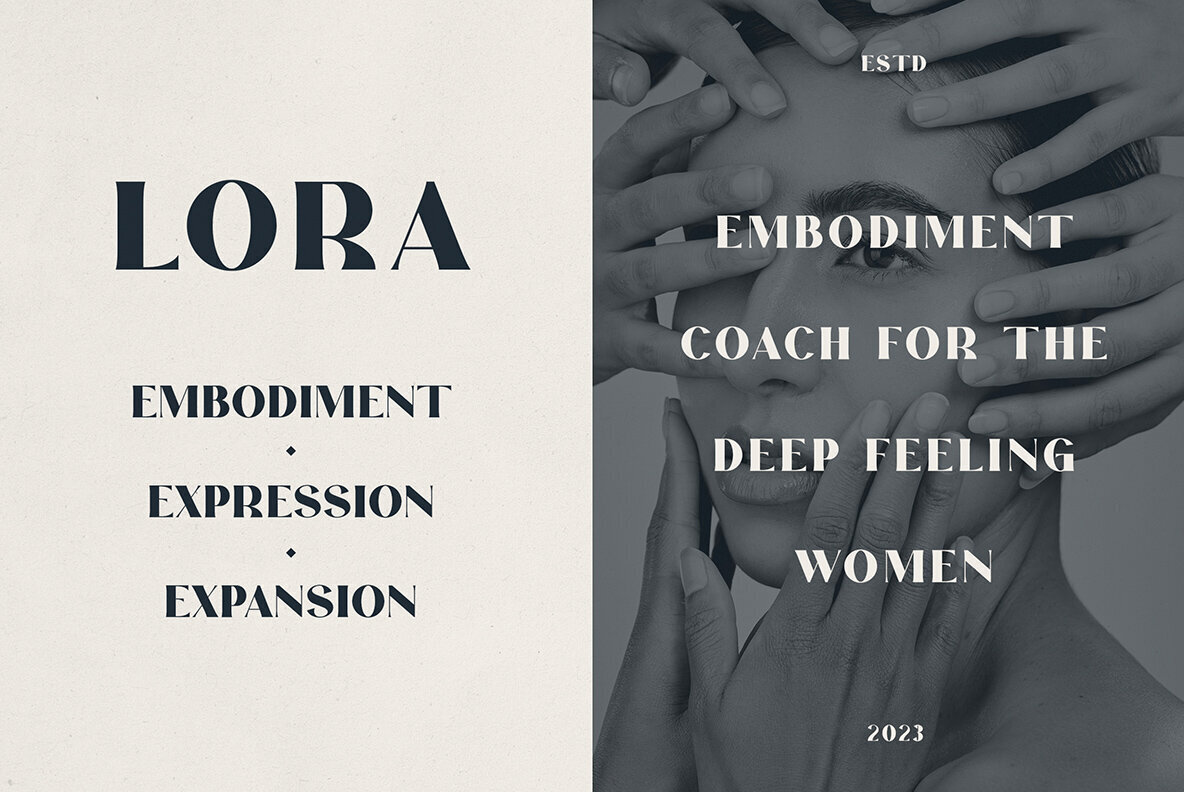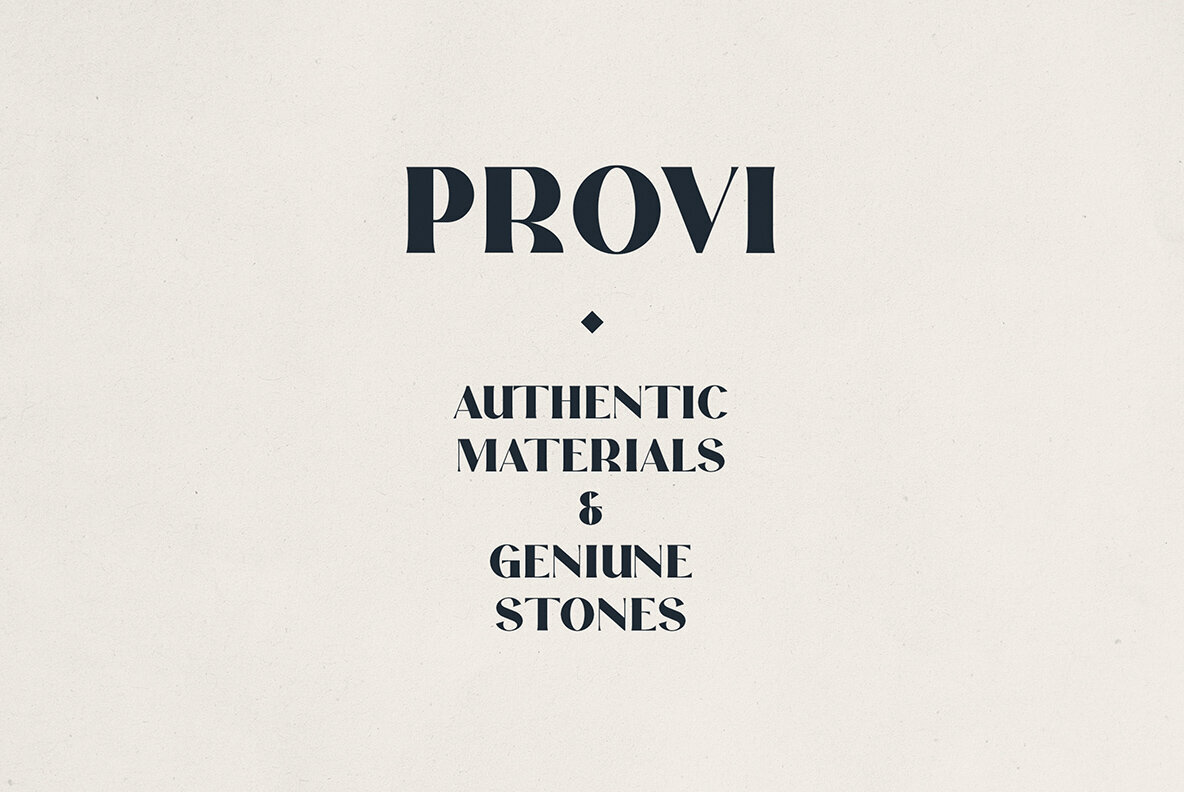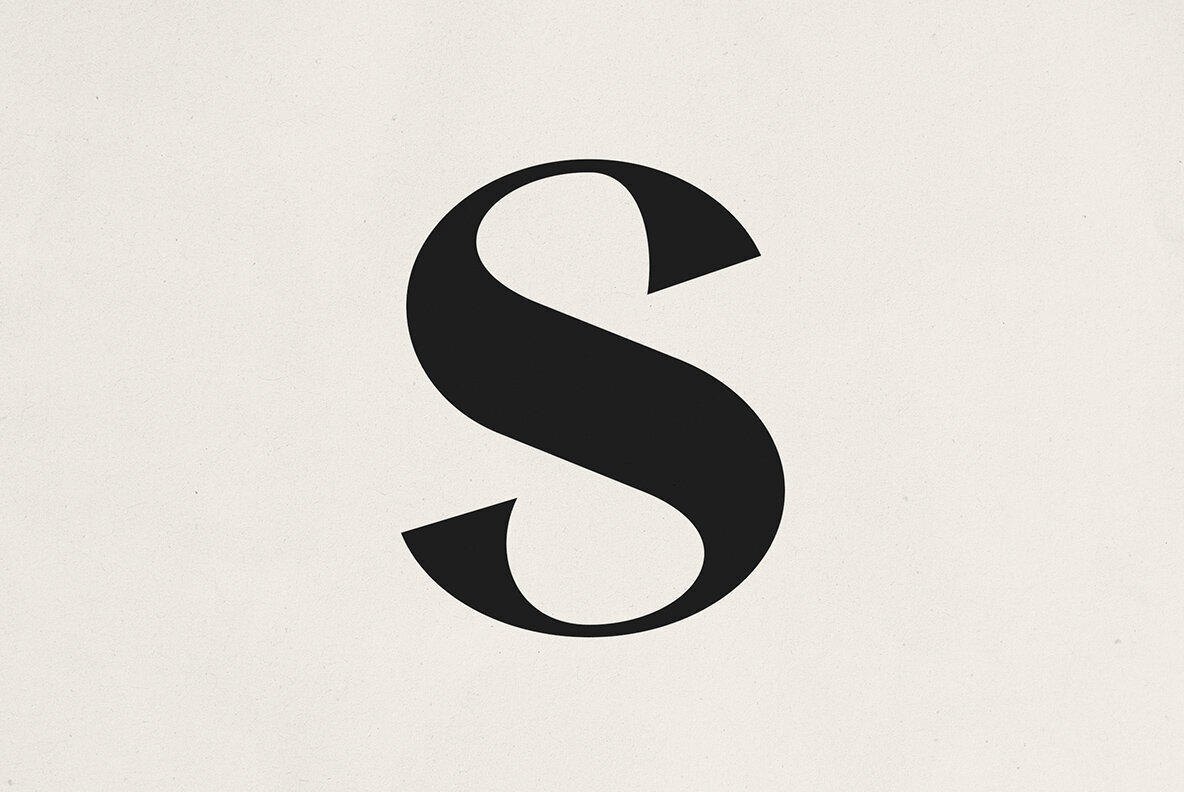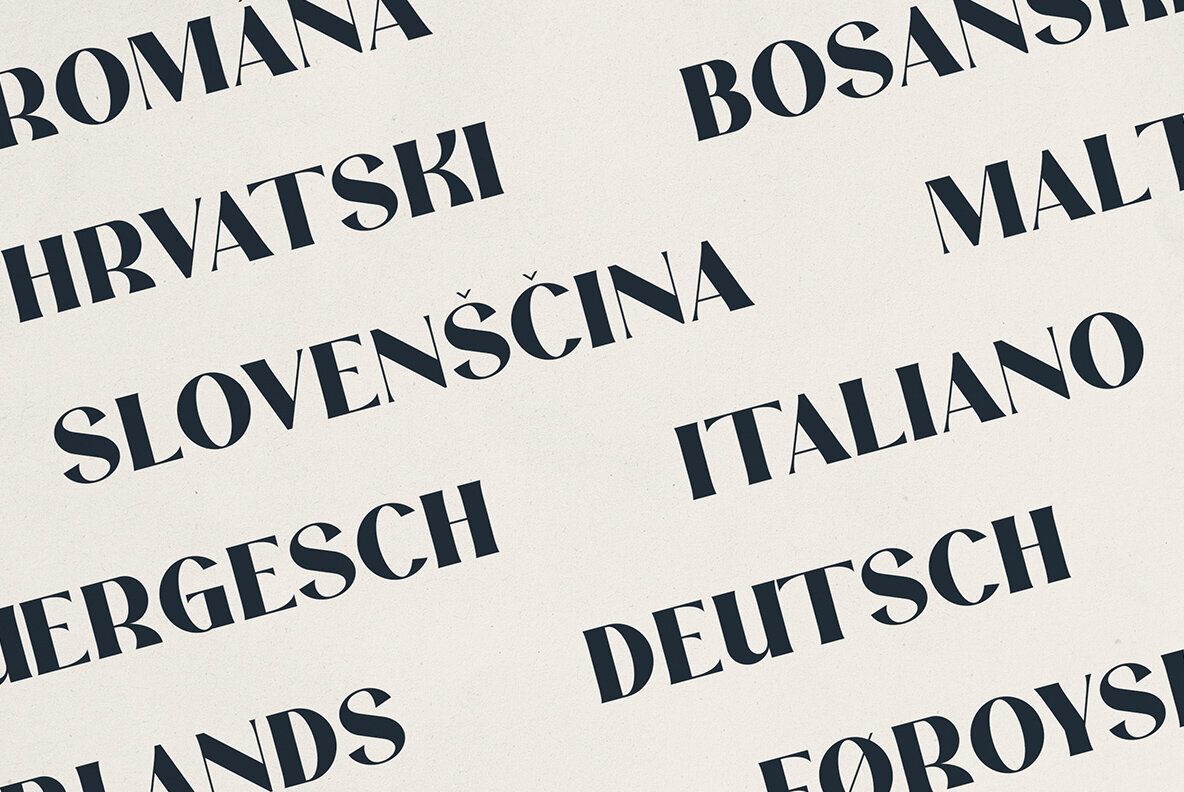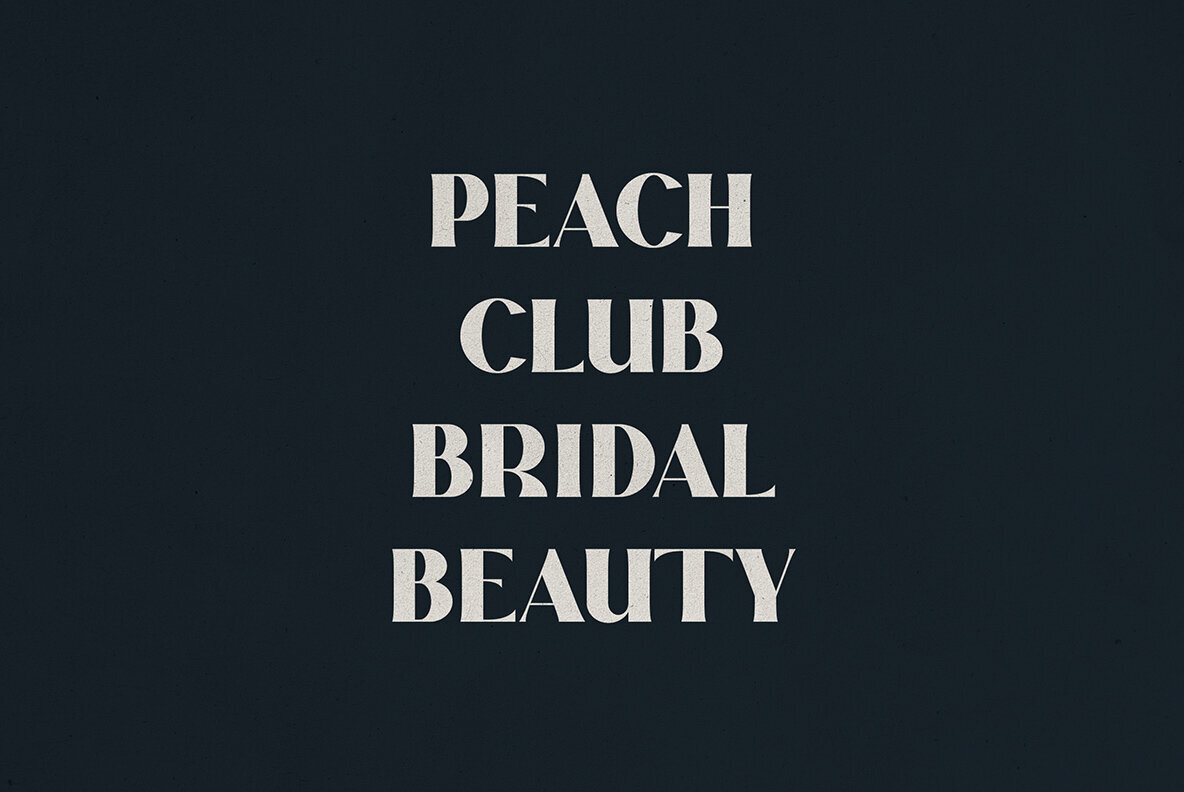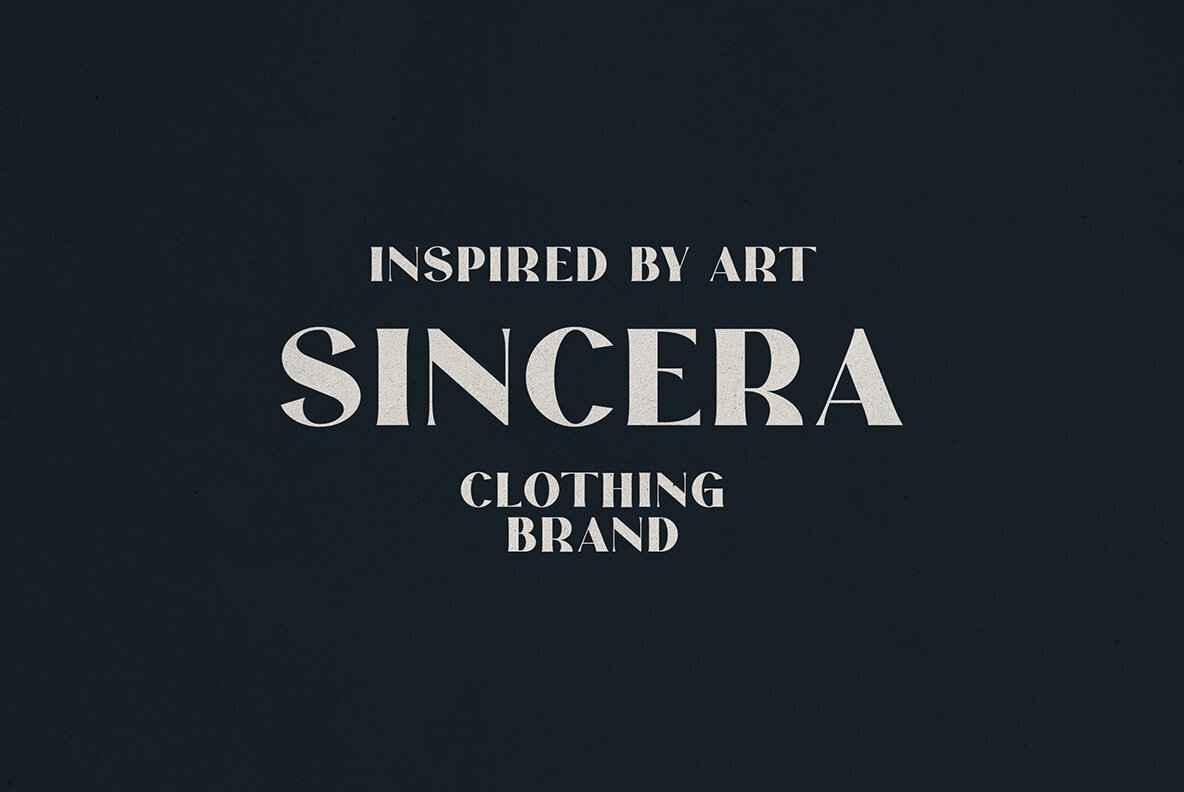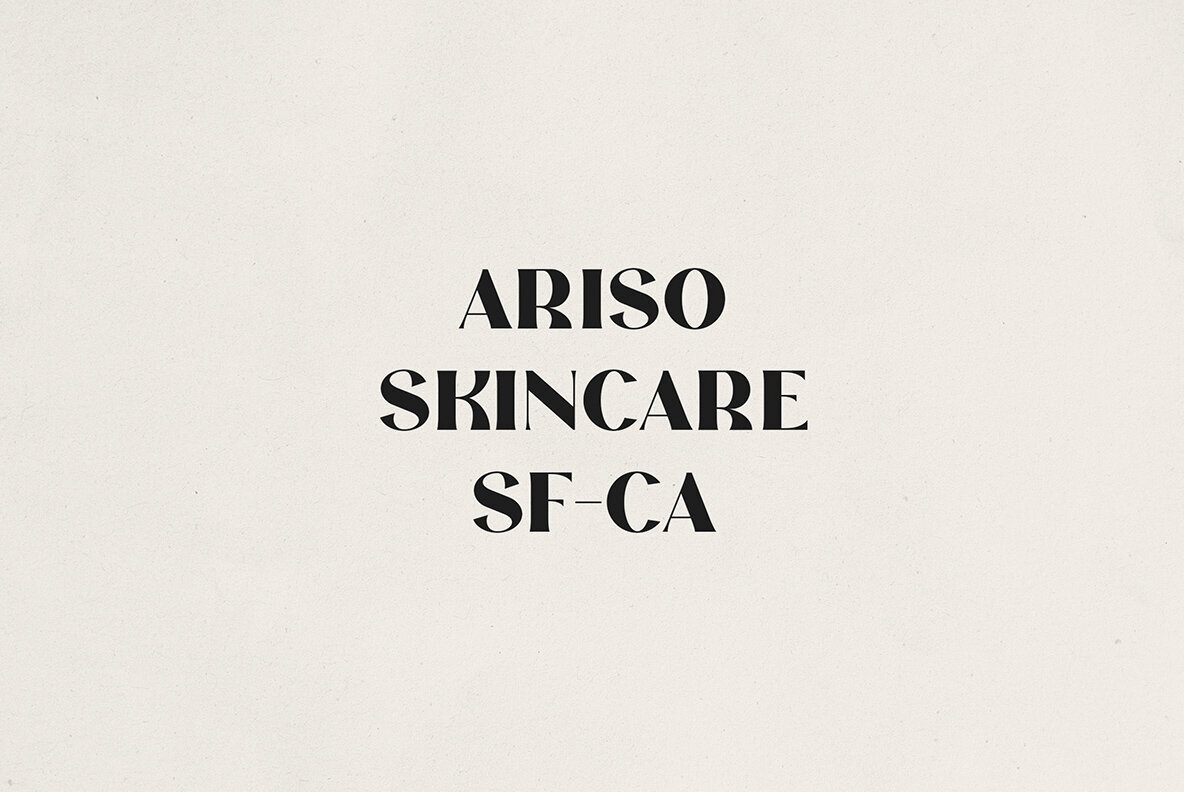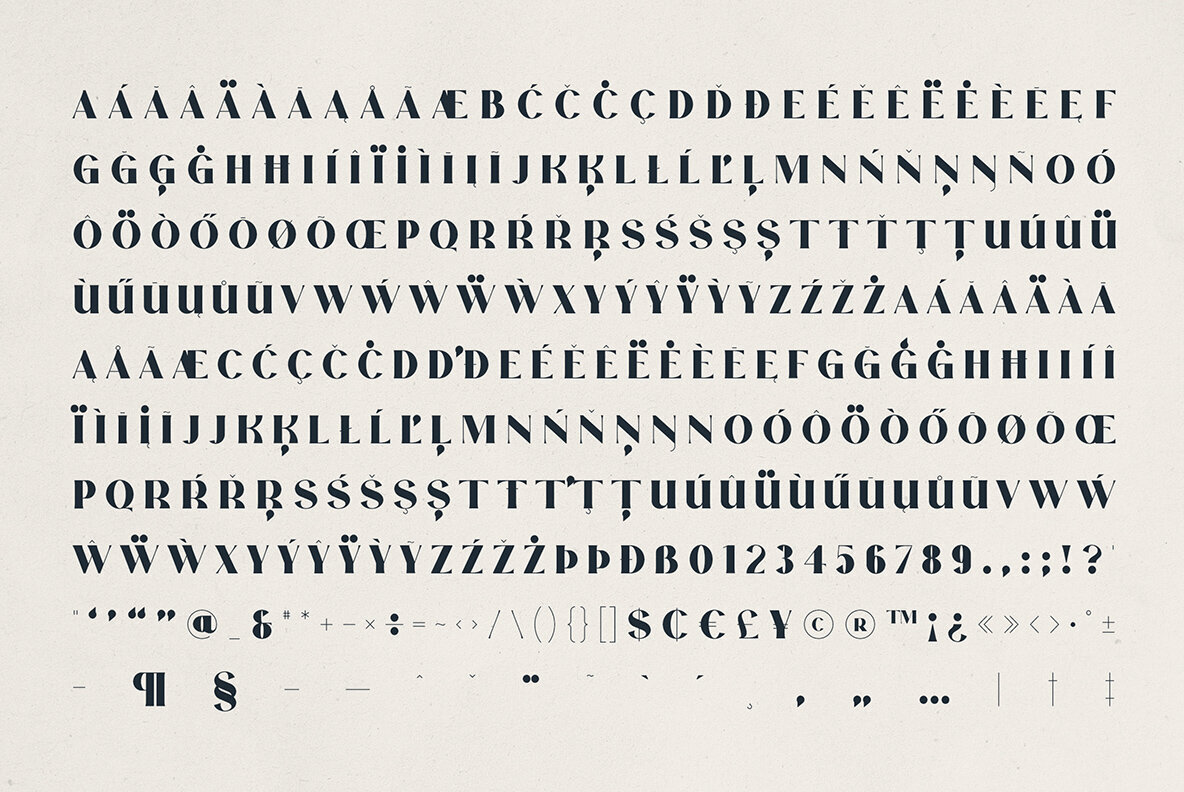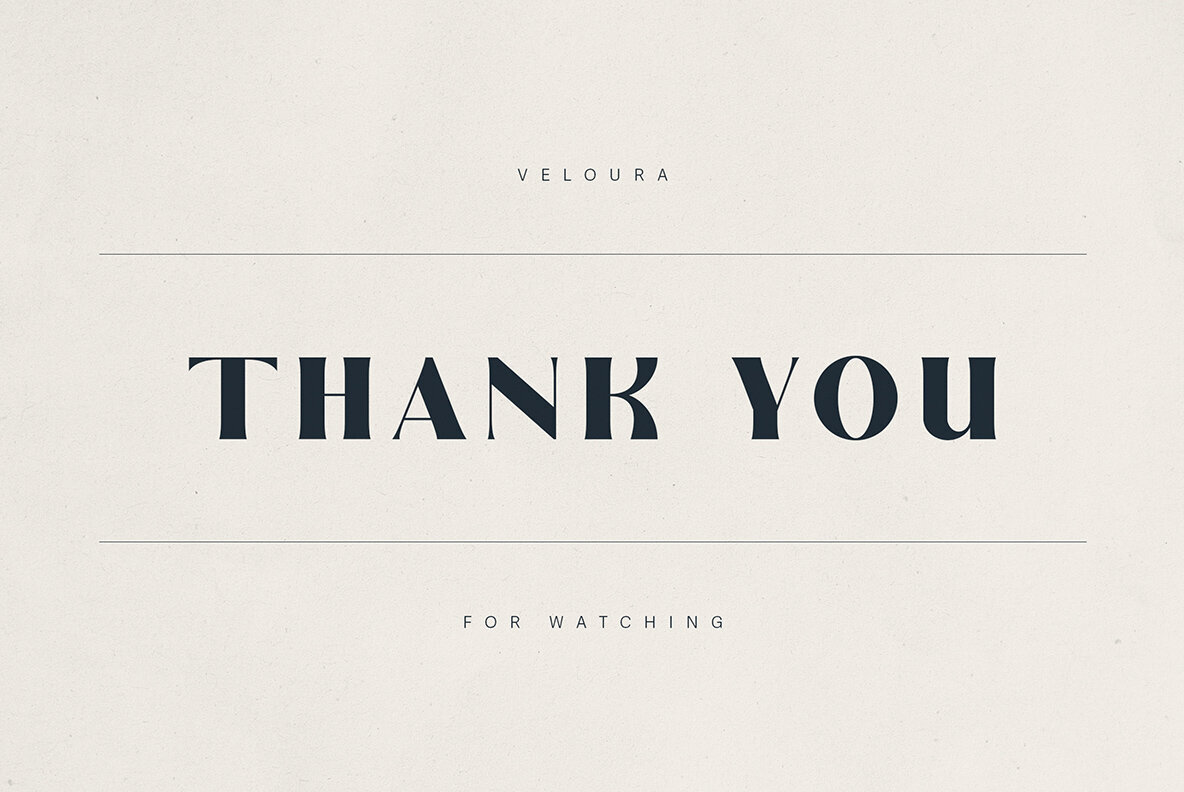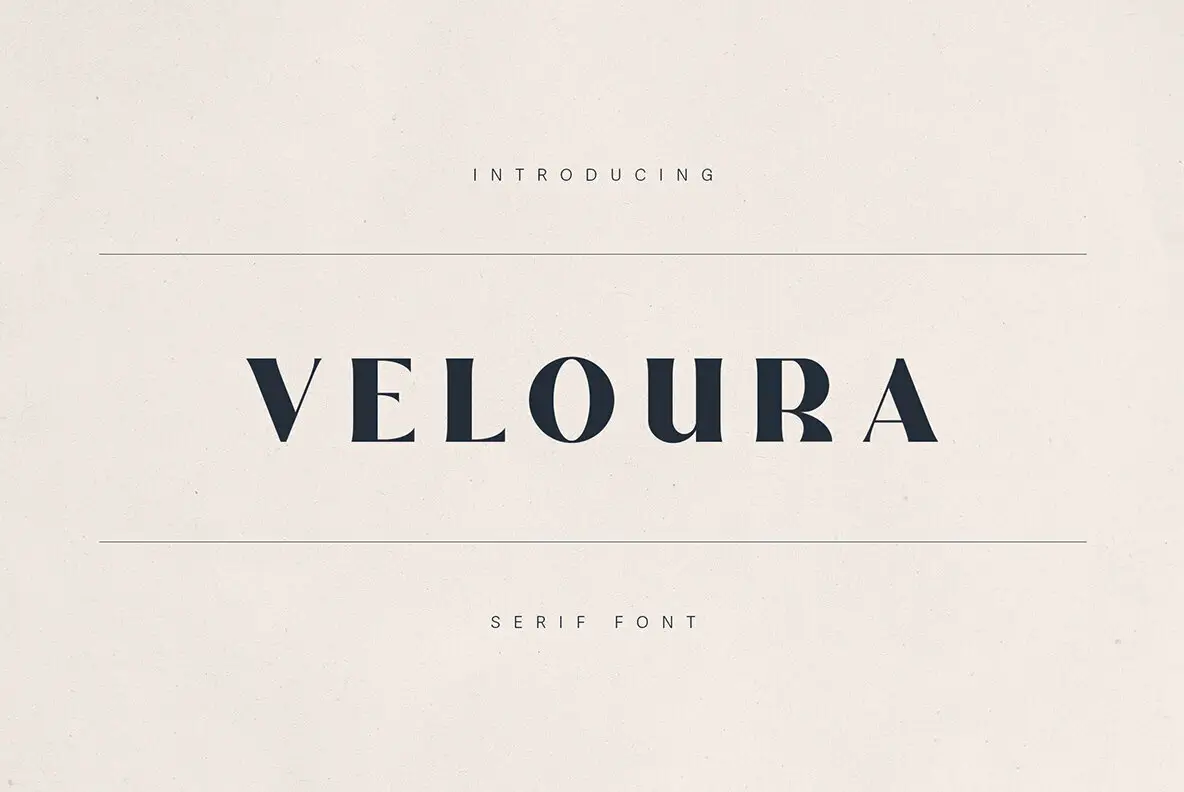
Immerse your brand in the luxurious sophistication of Veloura, a serif typeface masterfully crafted to bring your vision to life. With its high contrast strokes and unique cuts, Veloura seamlessly bridges modern editorial style with vintage allure. Perfectly suited for beauty brands, fashion labels, wellness studios, and art-driven projects, it provides a canvas for expression and creative clarity. Veloura is your go-to for design projects that demand emotional depth and strong character. Whether creating logos, packaging, magazine titles, or social media visuals, Veloura ensures each word leaves a lasting impression. Its versatility spans countless applications, including wedding branding, poster design, and more. Designed to communicate across cultures, Veloura supports a wide range of languages: Afrikaans, Albanian, Asu, Basque, Bemba, Bena, Breton, Chiga, Colognian, Cornish, Czech, Danish, Dutch, Embu, English, Estonian, Faroese, Filipino, Finnish, French, Friulian, Galician, Ganda, German, Gusii, Hungarian, Indonesian, Irish, Italian, Jola-Fonyi, Kabuverdianu, Kalenjin, Kamba, Kikuyu, Kinyarwanda, Latvian, Lithuanian, Lower Sorbian, Luo, Luxembourgish, Luyia, Machame, Makhuwa-Meetto, Makonde, Malagasy, Maltese, Manx, Meru, Morisyen, North Ndebele, Norwegian, Bokmål, Norwegian, Nynorsk, Nyankole, Oromo, Polish, Portuguese, Quechua, Romanian, Romansh, Rombo, Rundi, Rwa, Samburu, Sango, Sangu, Scottish Gaelic, Sena, Shambala, Shona, Slovak, Soga, Somali, Spanish, Swahili, Swedish, Swiss German, Taita, Teso, Turkish, Upper Sorbian, Uzbek (Latin), Volapük, Vunjo, Walser, Welsh, Western Frisian, Zulu.Veloura Serif Font: Timeless Elegance for Inspired Branding
Extensive Language Support